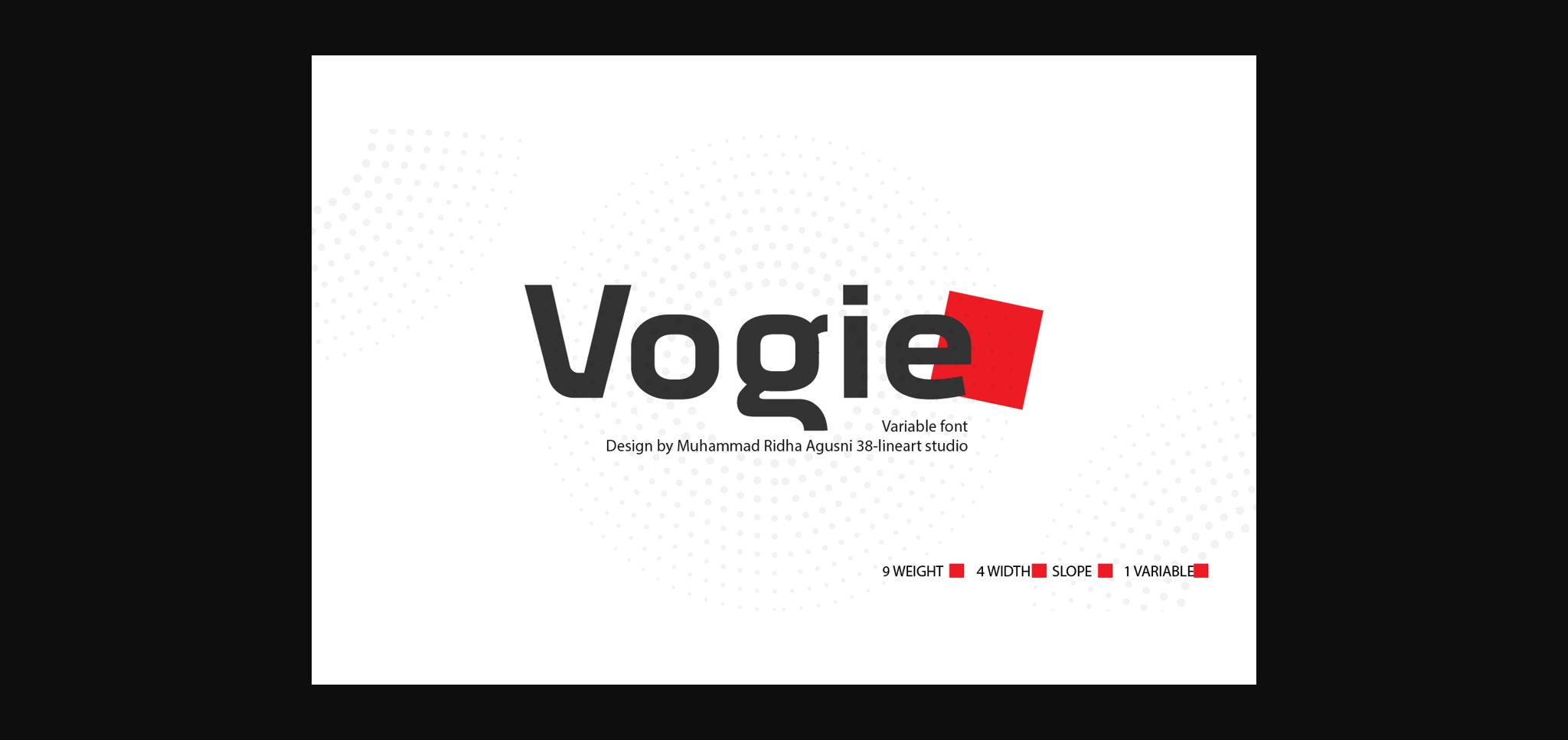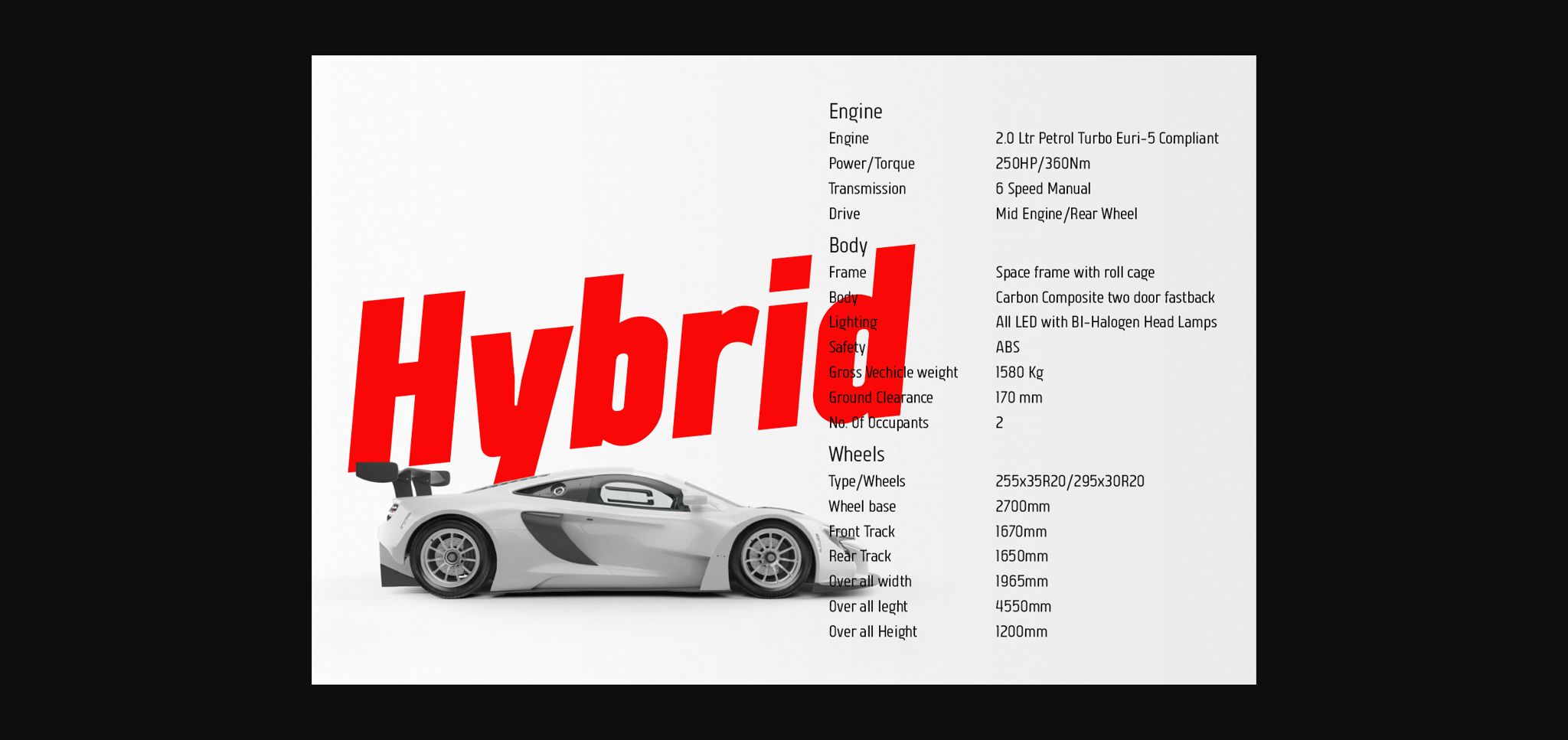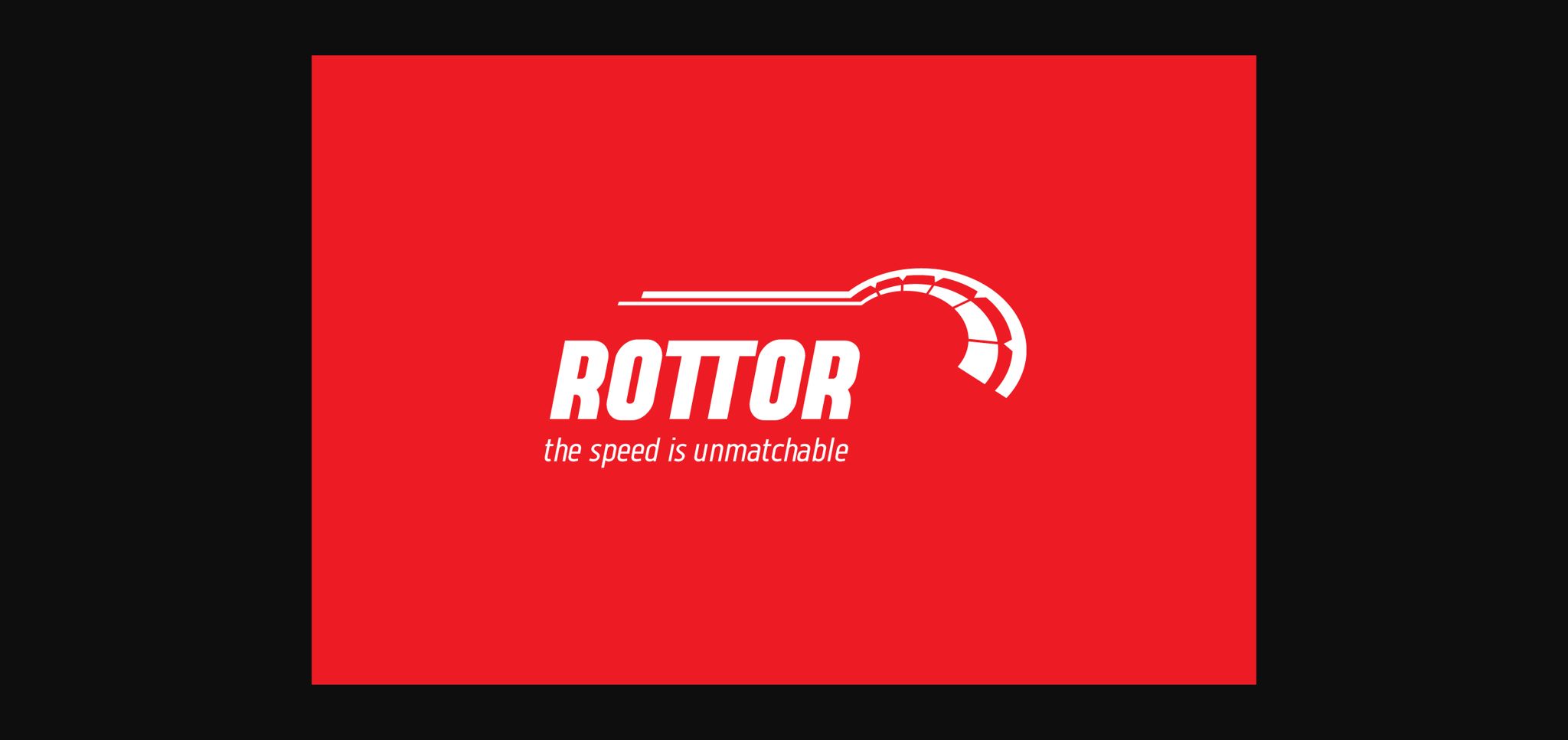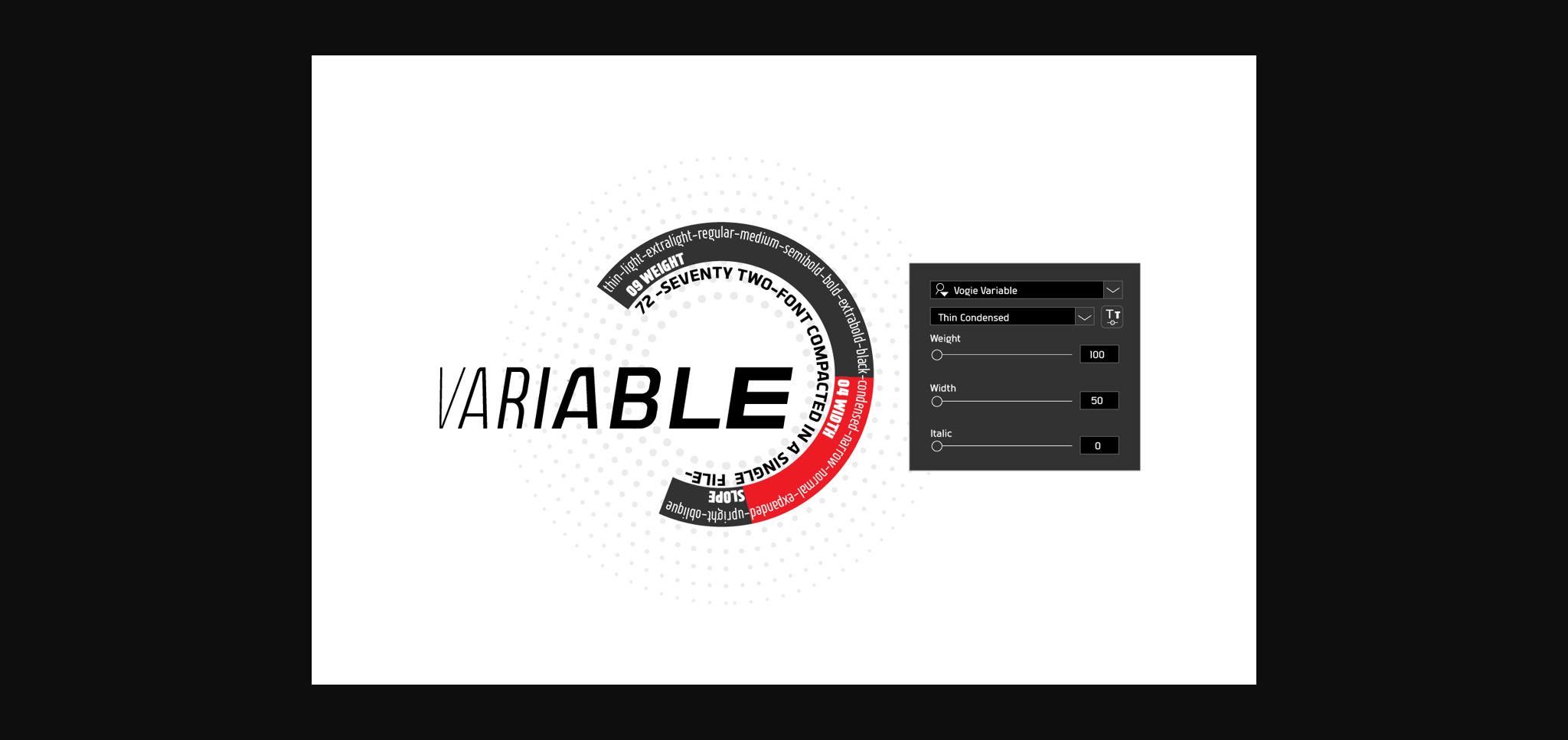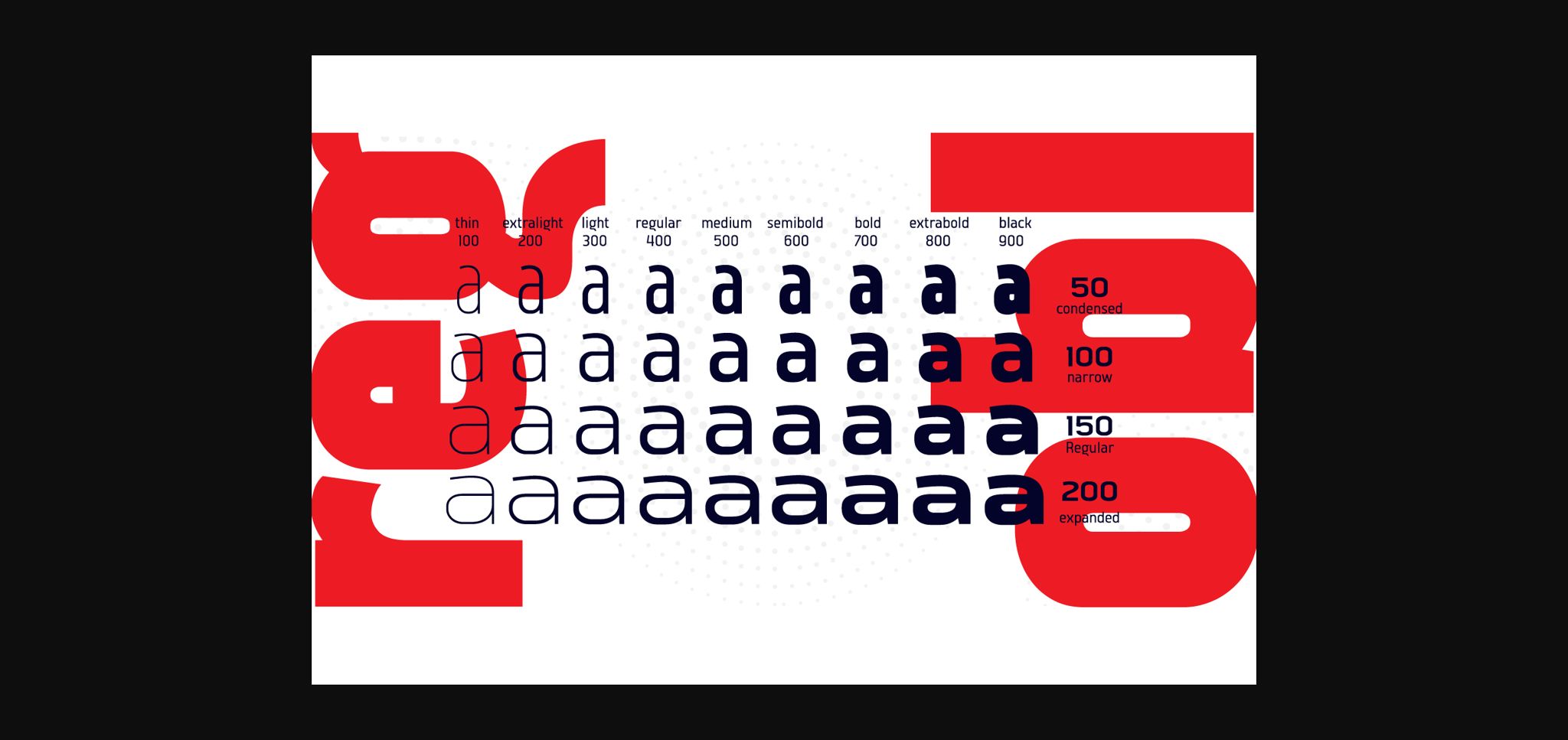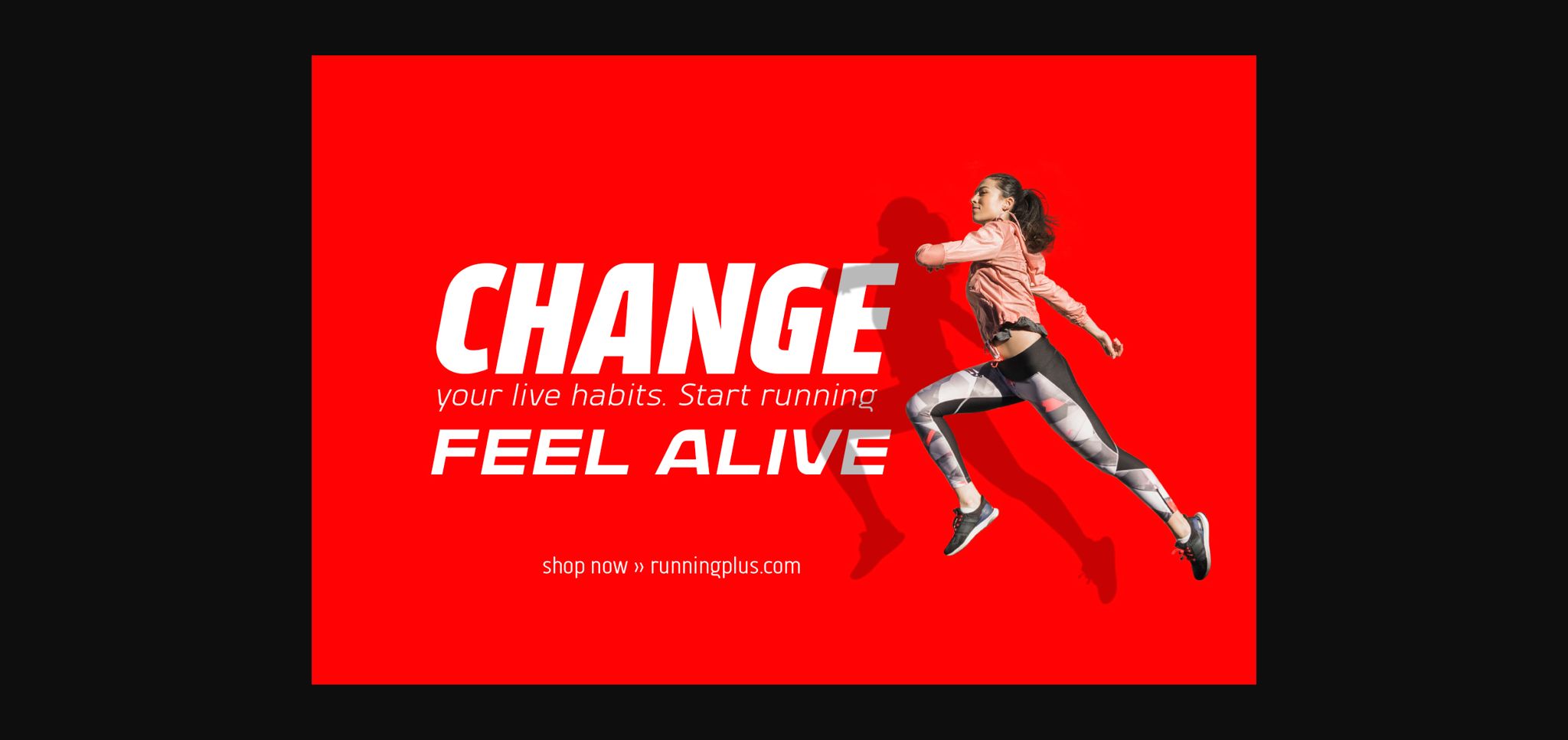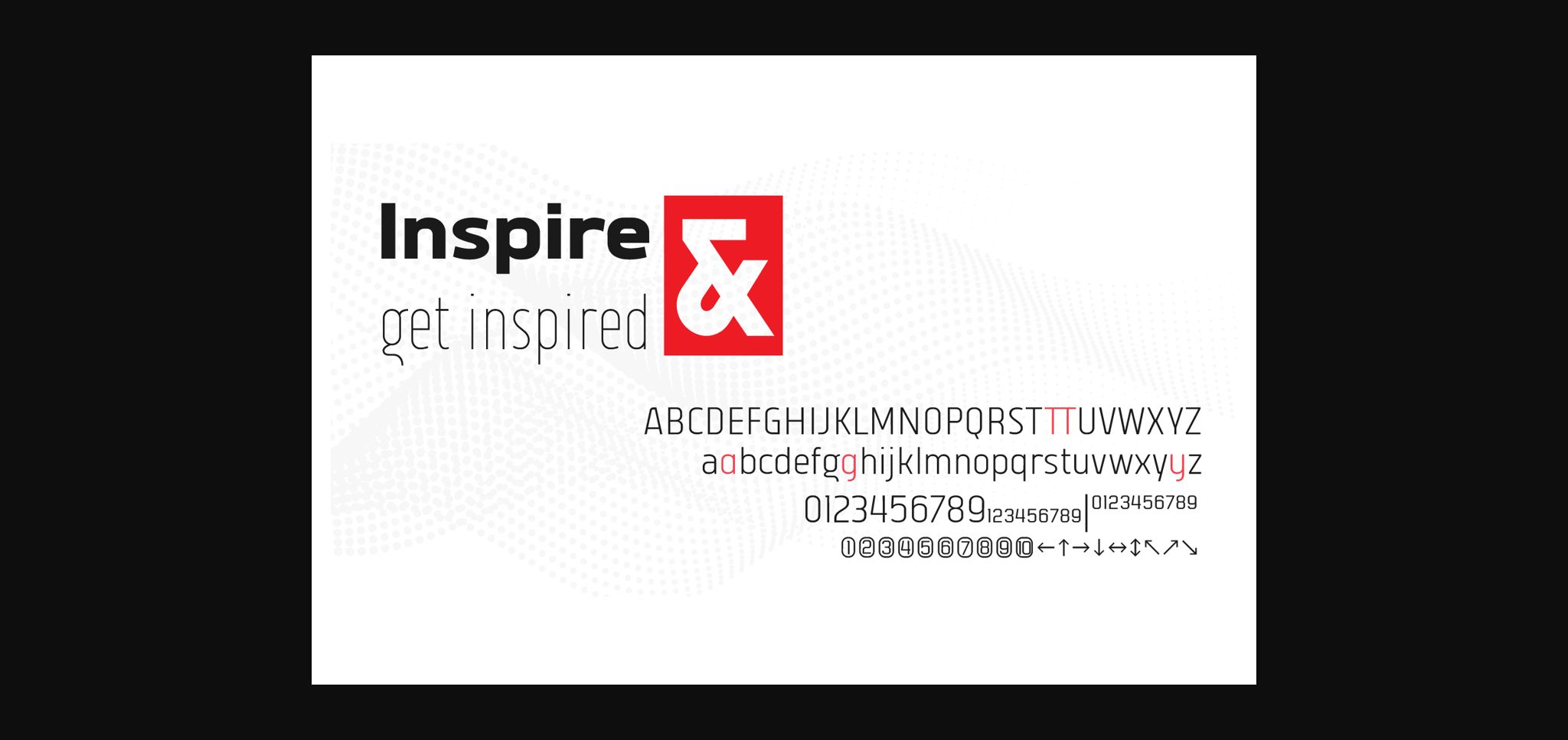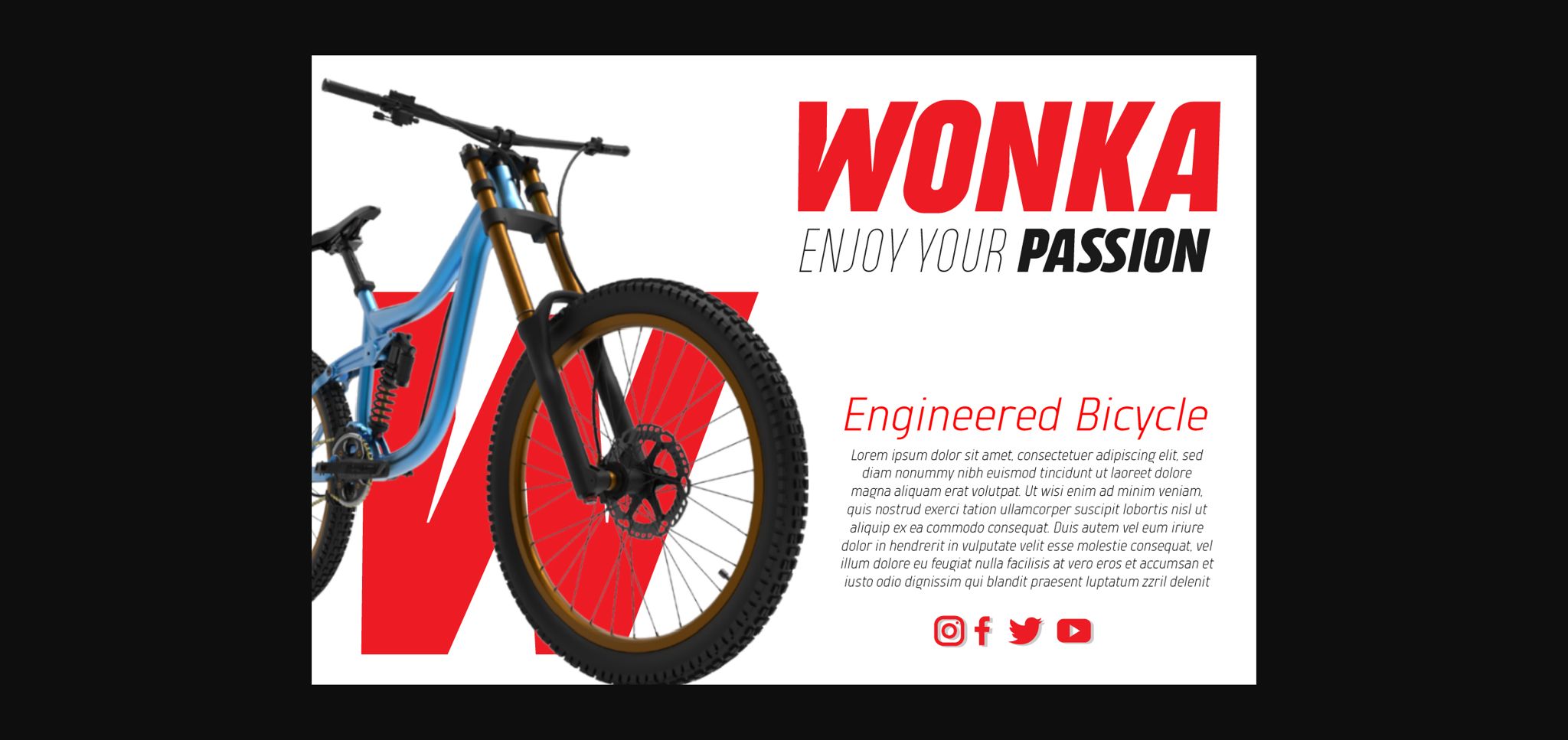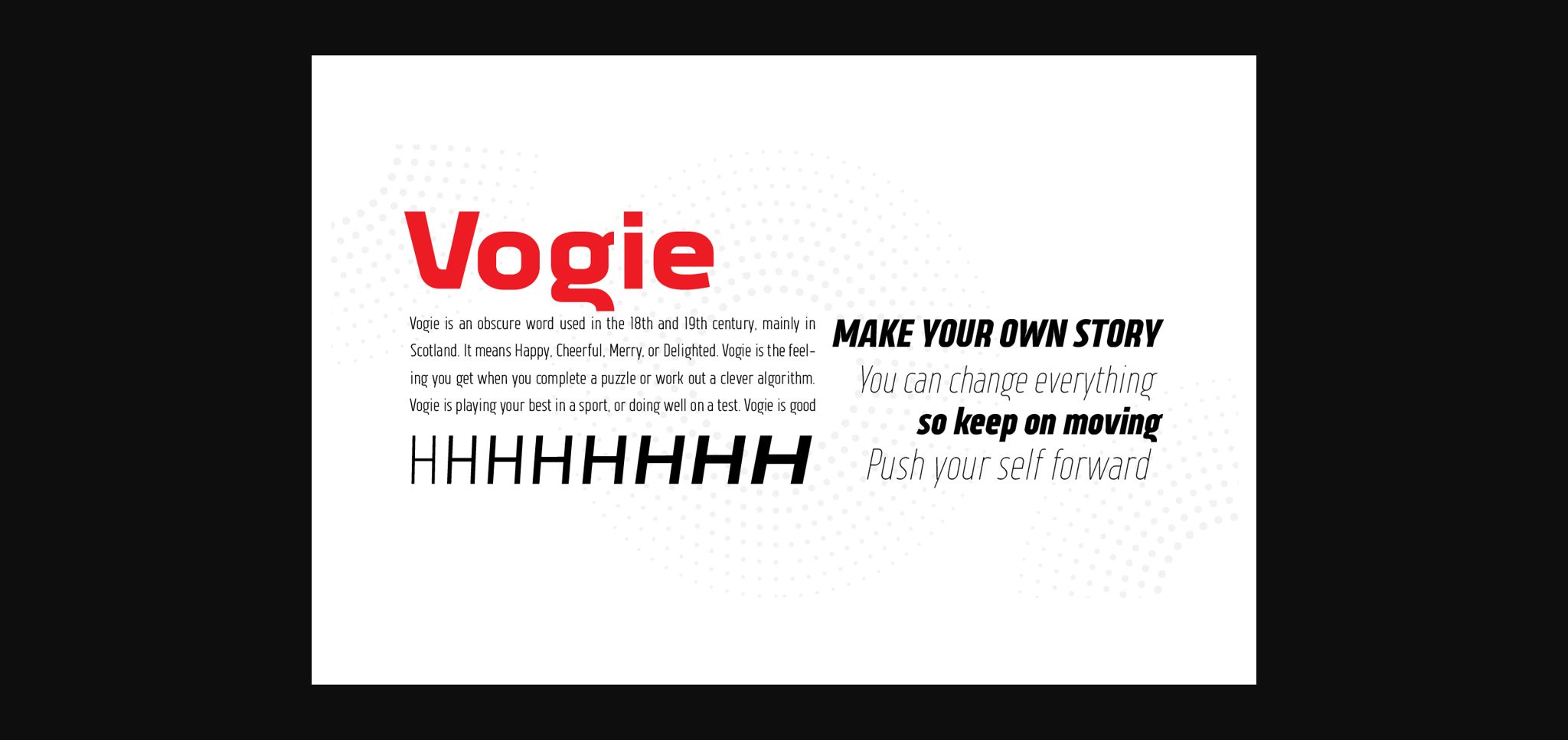
HomeSans Serif FontsVogie Font Sans Serif Fonts Vogie Font FacebookXPinterestWhatsApp 1 of 11 ... Vogie Font Poster 2... Vogie Font Poster 3... Vogie Font Poster 4... Vogie Font Poster 5... Vogie Font Poster 6... Vogie Font Poster 7... Vogie Font Poster 8... Vogie Font Poster 9... Vogie Font Poster 10... Vogie Font Poster 11... About Vogie Font Vogie is a sporty and modern sans serif font. It can easily be matched to an incredibly large set of projects, so add it to your creative ideas and notice how it makes them stand out! DOWNLOAD NOW People also explored Single Font Vanilla Mantape Font Charter Winter Font Flower Blossom Font Tropical Flamingo Font Abacaga Font Nektarine Font Rowmant Alonshie Font Lily Font 488 0 TagsVogieVogie Font Previous articleFarm Dream FontNext articleRaingold Budhe Shumiyati Font LEAVE A REPLY Cancel reply Comment: Please enter your comment! Name:* Please enter your name here Email:* You have entered an incorrect email address! Please enter your email address here Website: Save my name, email, and website in this browser for the next time I comment. Personal Use Free Muthiara Font Personal Use Free Read more about this font Yumail Personal Use Free Read more about this font 1980 Portable Personal Use Free Read more about this font Bulky Personal Use Free Read more about this font BLOG How to Cut Any Font on Cricut: Convert a Font to SVG (Free) Turn any font into a clean SVG so it cuts crisp on Cricut - a quick 3-step workflow using a free font-to-SVG tool. Best Fonts for YouTube Videos: Make Your Thumbnails Stand Out 5 Fonts That Will Dominate Design Trends in 2026 Free Fonts Risk: Why Free Fonts Can Be Dangerous for Designers